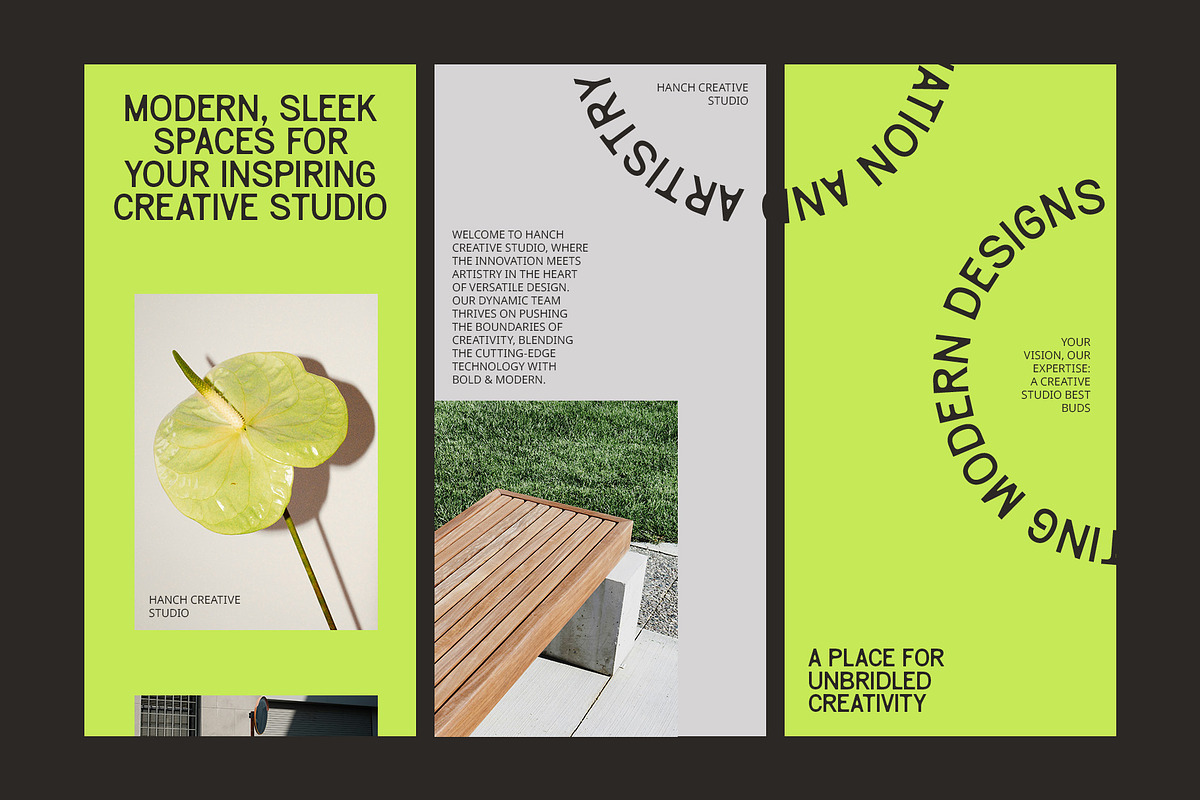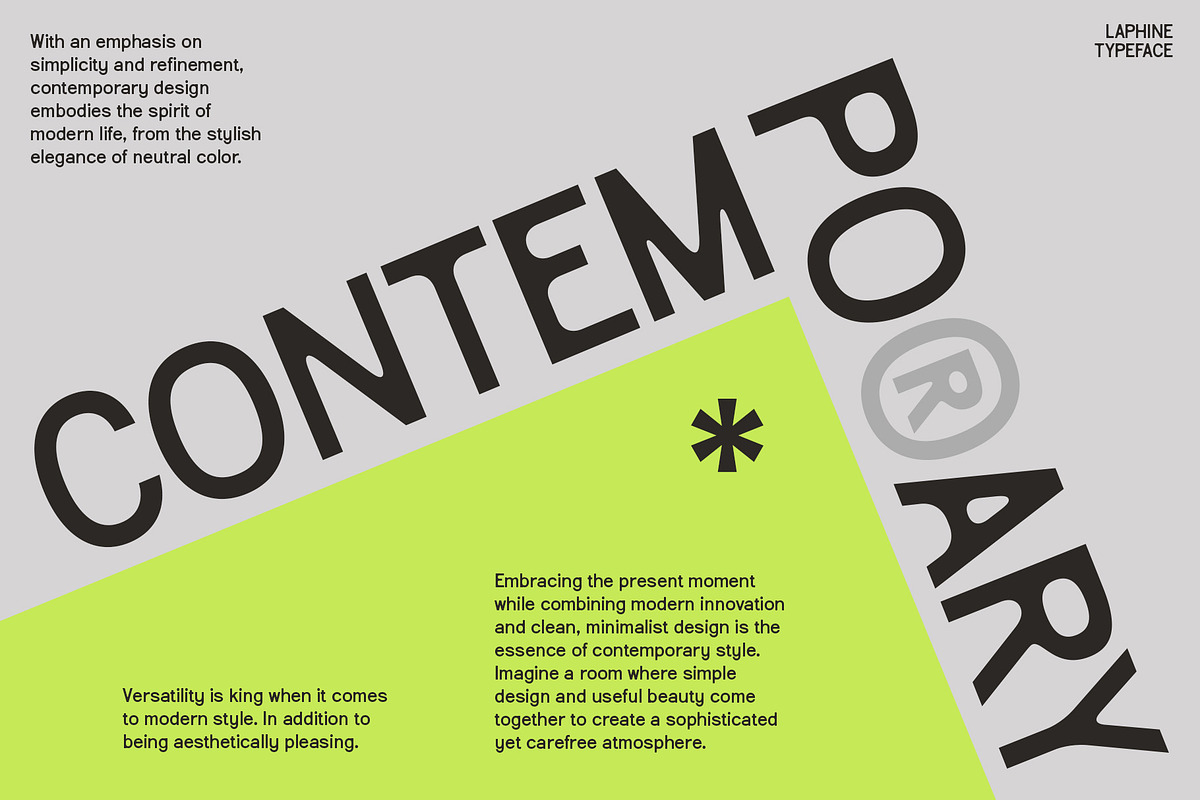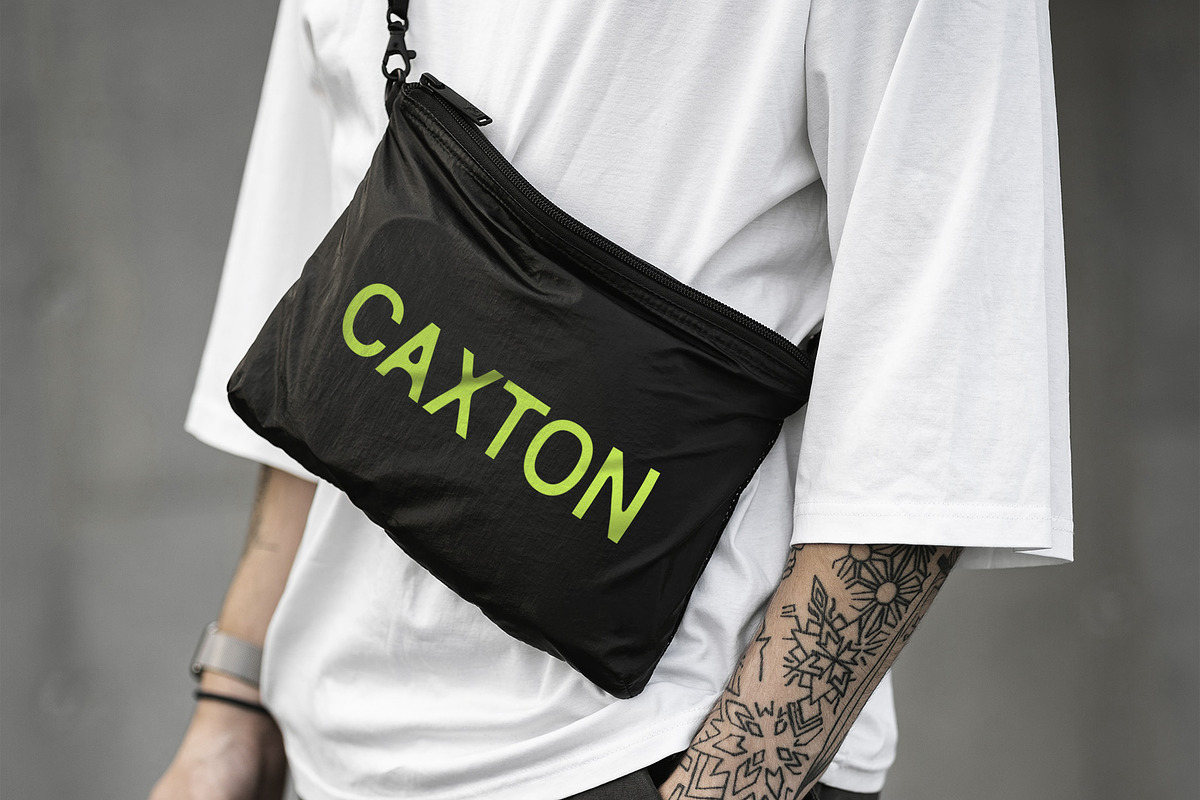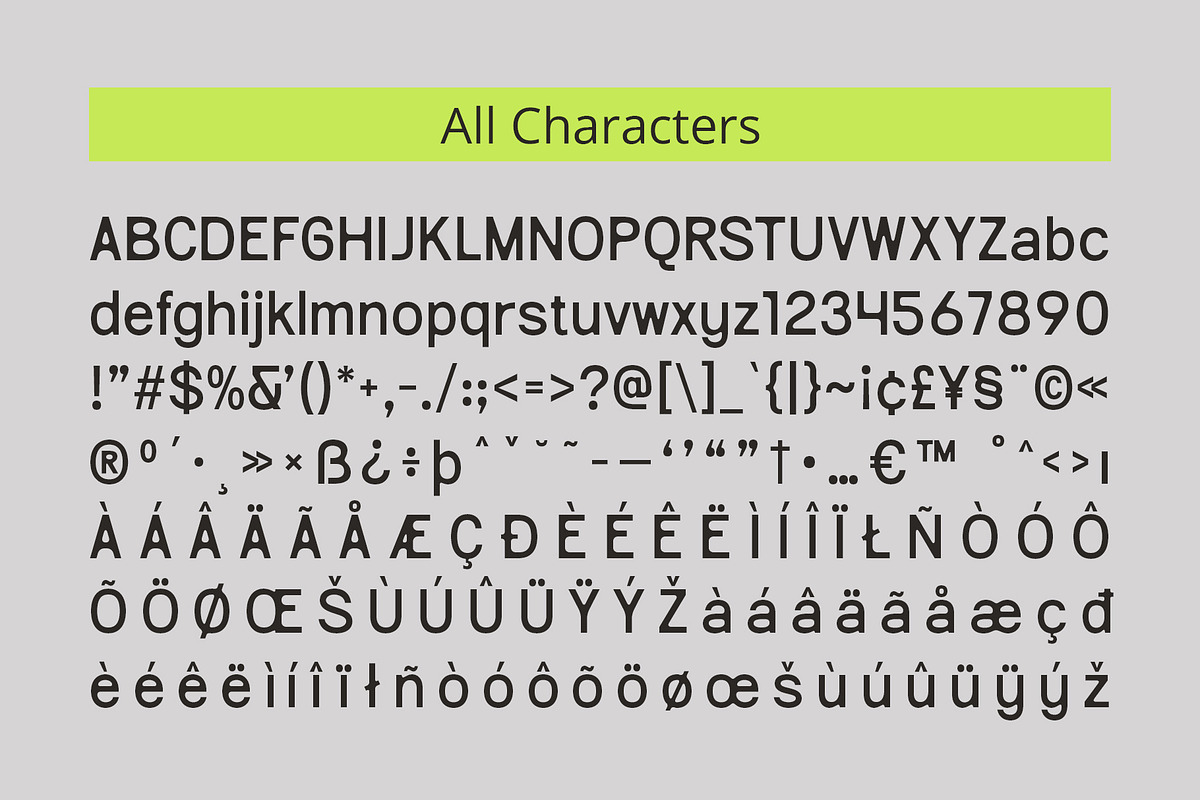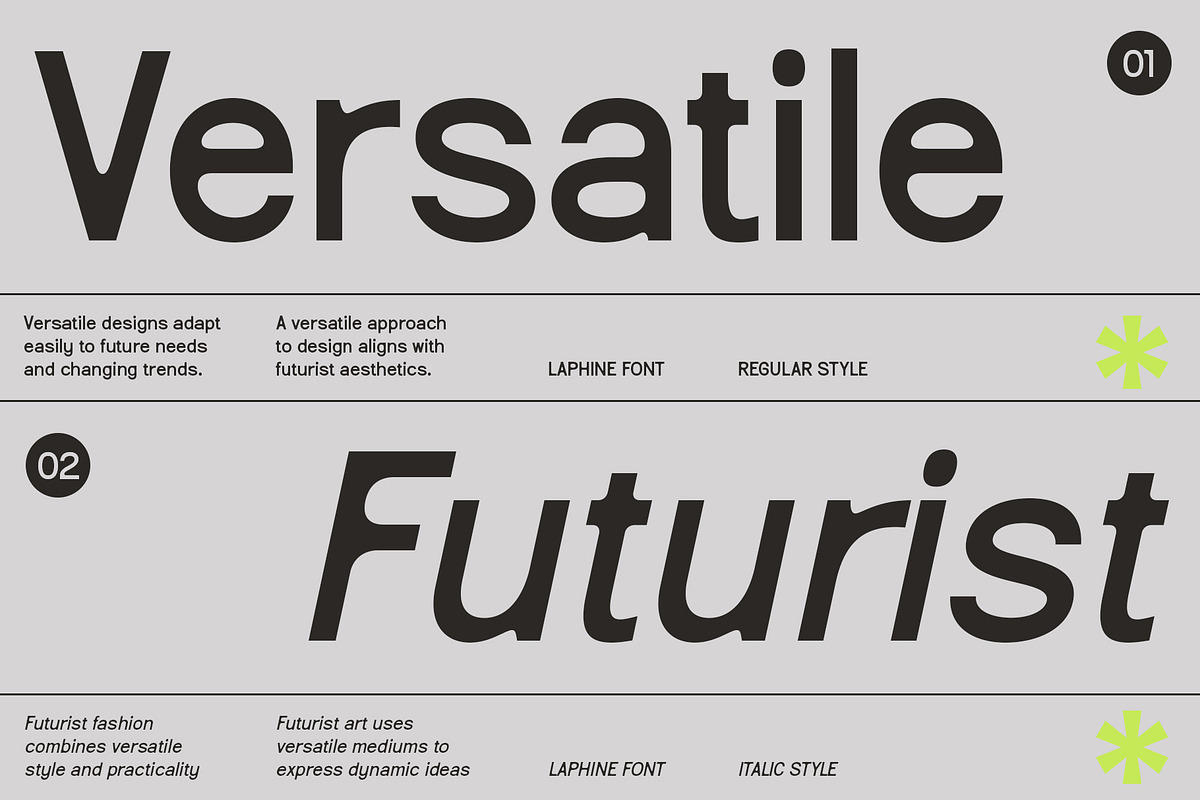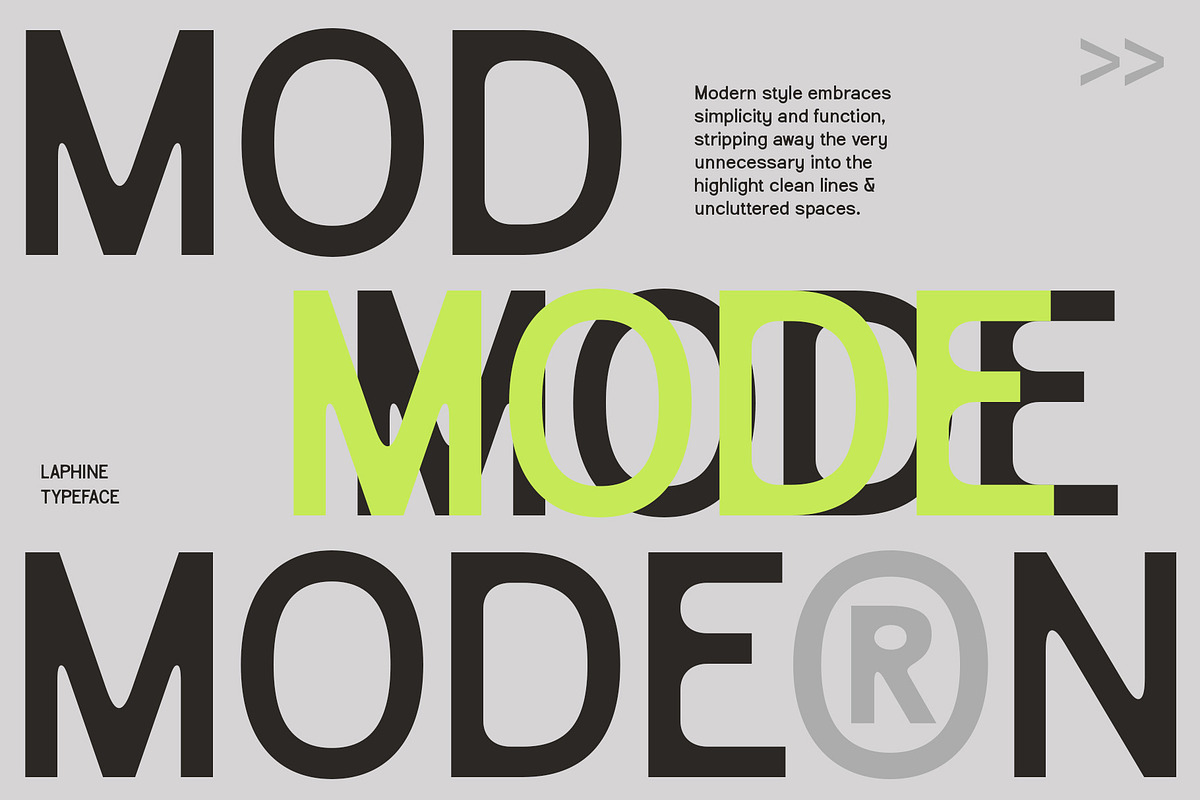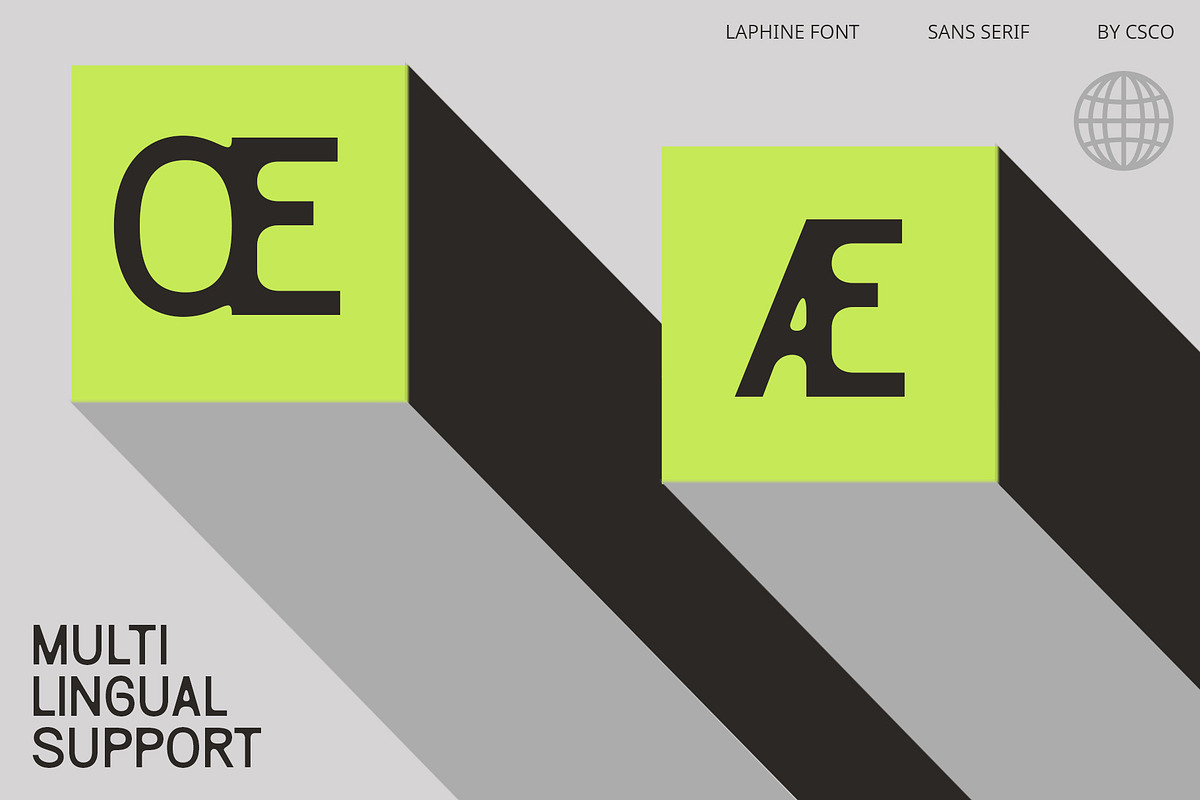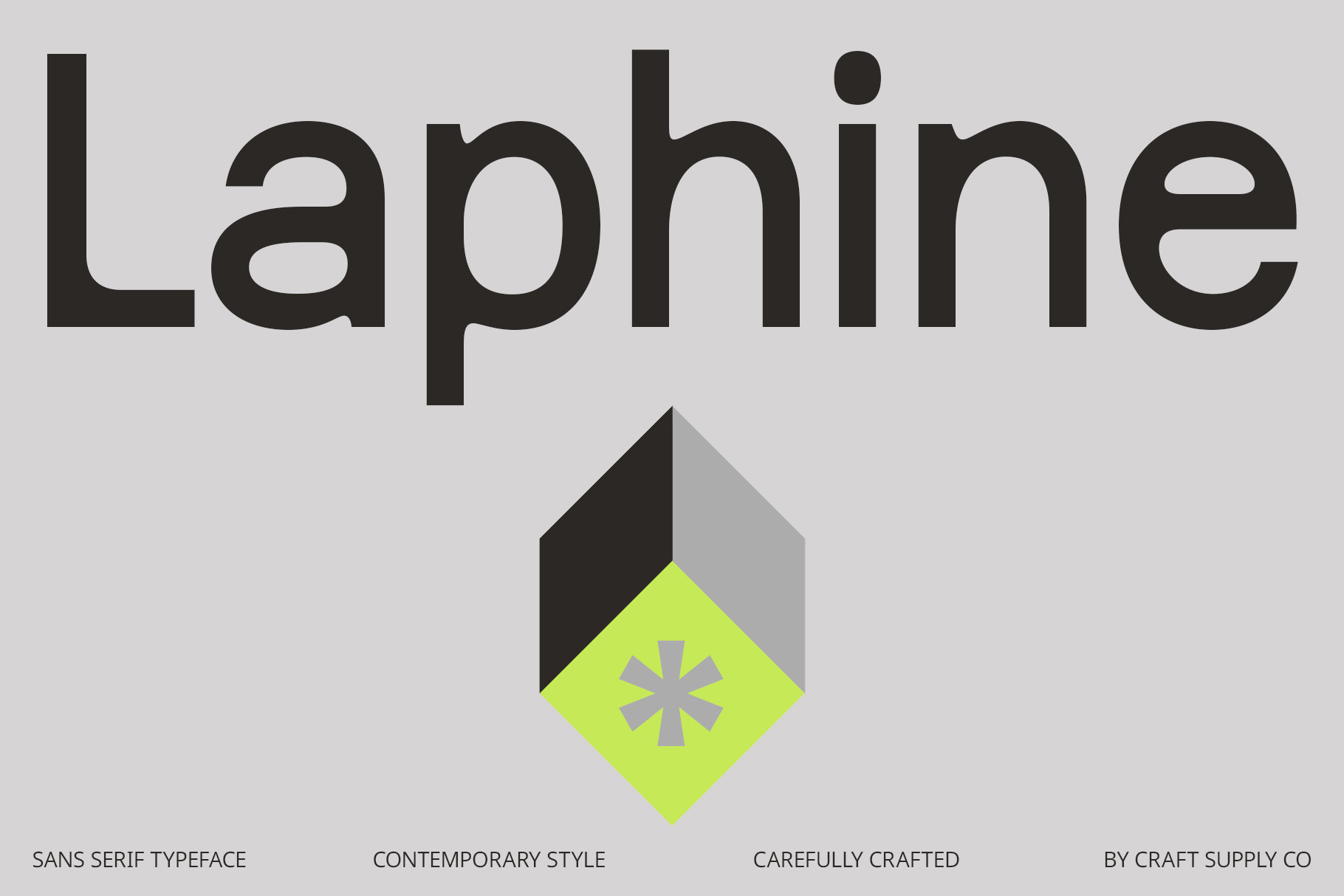
Laphine – Contemporary Font
Laphine – Contemporary Font: Clean and Professional Modern Sans-Serif
Modern Sans-Serif with Minimalist Design Laphine is a modern sans-serif font that features a contemporary, minimalist design. Its clean and simple form avoids excessive ornamentation, focusing on clear and proportional lines to deliver a professional impression.
Emphasizes High Readability and Elegance The minimalist design of Laphine ensures high readability while maintaining an elegant appearance. Its straightforward structure highlights efficiency and clarity, making it ideal for various professional applications.
Contemporary Elements for a Fresh, Modern Touch Incorporating contemporary elements, Laphine adds a fresh, modern touch to any design. The font’s sleek lines and proportional design reflect an innovative and up-to-date attitude, enhancing its visual appeal.
Perfect for Branding, Presentations, and Websites Laphine is ideal for professional design applications such as branding, presentation materials, and websites. Its clean, modern aesthetic ensures a polished look, making it suitable for projects that require a blend of efficiency and contemporary style.
Showcases Efficiency and Clarity Whether for corporate branding or digital media, Laphine offers a sophisticated and modern appearance. Its minimalist design and professional quality make it a versatile choice for conveying clarity and innovation in any project.
- Laphine Regular
- Laphine Italic